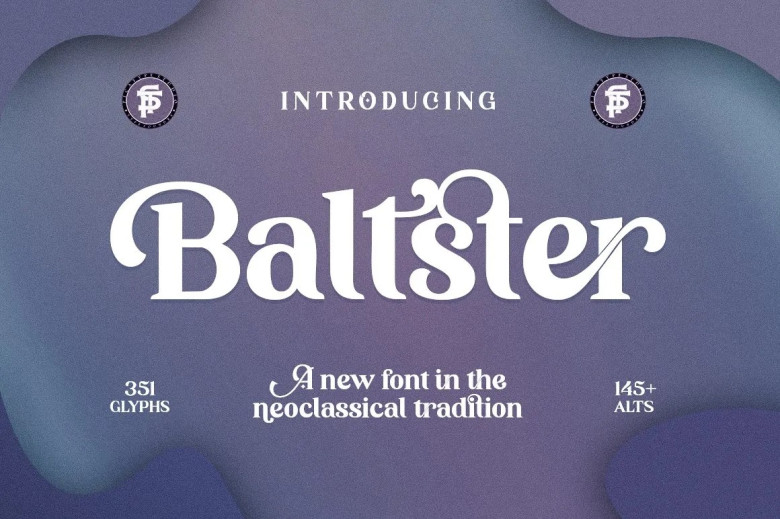
Baltster Font
Balster Serif Font is a bold beautiful design that is natural and elegant, with just the slightest hint of bitterness. Linking letters with 56 ligatures, Baltster can be a great display font. It comes with 89 alternatives. Baltster’s very irregular style makes it the ideal option for headlines and display tasks. This special font also includes numbers, symbol and punctuation. Multilingual and PUA encoded.
Let this font makes your work look raw and pure! Baltster is perfect for any modern project such as brand design and logo designs, invitations, wedding ornaments, website designs, instagram, business cards.
Baltster Serif Font